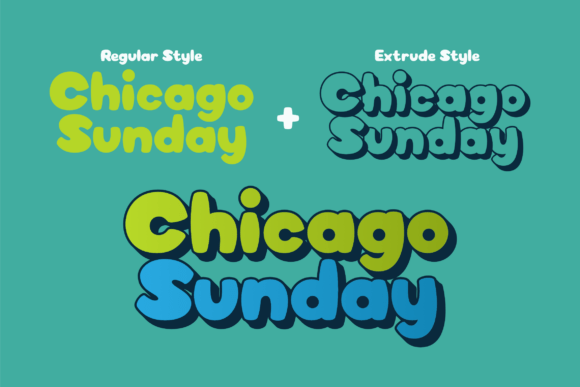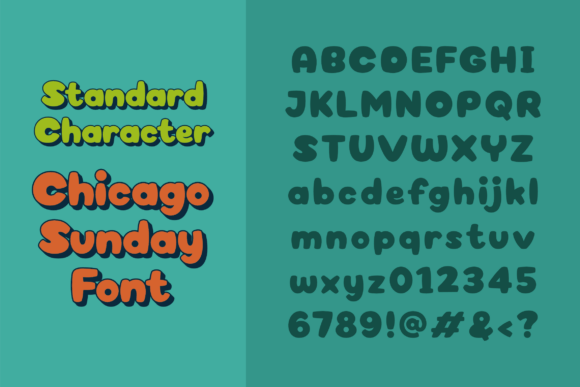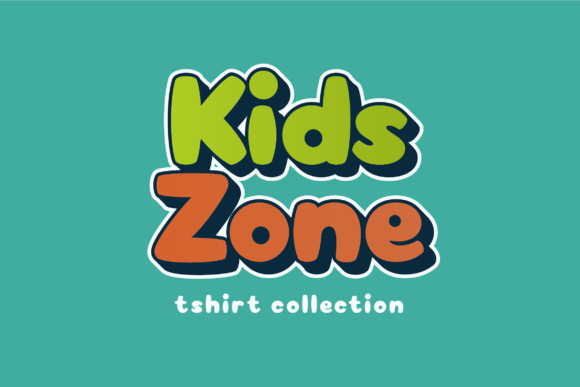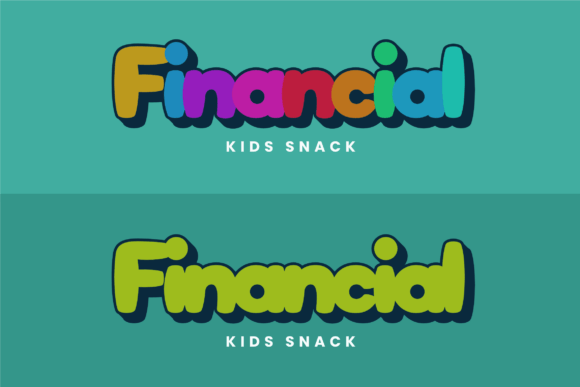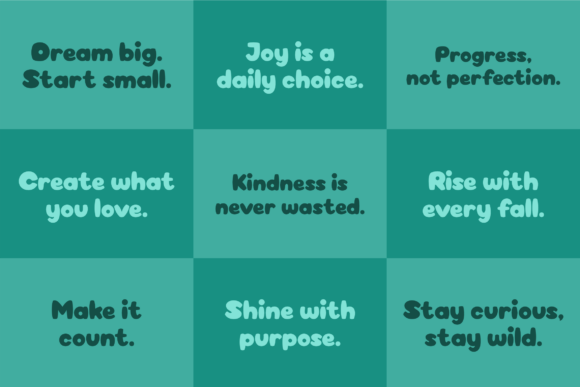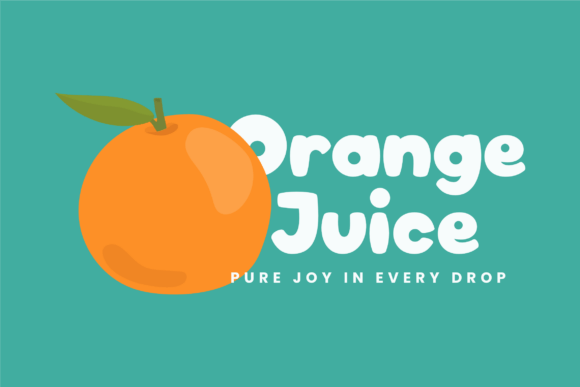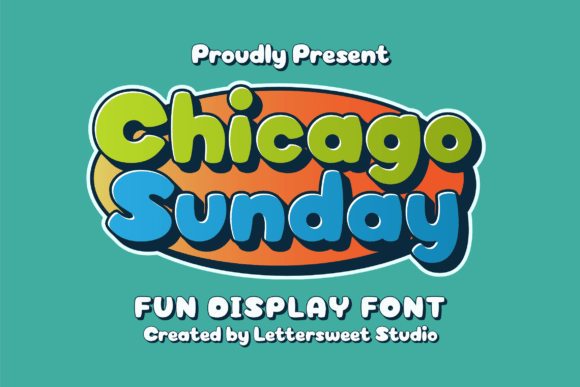
Introducing Chicago Sunday: The Ultimate Display Font for Creative Projects
Are you tired of using the same old fonts for your creative projects? Look no further! Say hello to Chicago Sunday, a cheerful and bold display font designed to bring joy and positivity to your designs. With its chunky curves, vibrant style, and cartoon-inspired look, this font is perfect for anything that needs a dose of fun and energy.
The Perfect Font for Playful Designs
Chicago Sunday is a versatile font that can be used for a wide range of creative projects, from kids’ products and playful logos to comic books, YouTube thumbnails, greeting cards, and educational materials. Its bold and easy-to-read letterforms make it perfect for headlines, branding, and display use, while its friendly and energetic vibe adds a lively personality to your design.
Why Choose Chicago Sunday?
So, what sets Chicago Sunday apart from other fonts? Here are just a few reasons why designers and crafters love this font:
• Bold and easy-to-read letterforms: Chicago Sunday’s chunky curves and bold lines make it easy to read, even at small sizes.
• Friendly and energetic vibe: This font exudes a playful and cheerful personality that’s perfect for designs that need a dose of fun and positivity.
• Great for headlines, branding, and display use: Chicago Sunday is designed to grab attention and make a statement, making it perfect for headlines, logos, and display text.
• Comes with full uppercase, lowercase, punctuation & multilingual support: This font includes a wide range of characters, making it suitable for use in a variety of languages and projects.
• Perfect for both digital and print projects: Whether you’re designing for screen or print, Chicago Sunday is a versatile font that can be used in a wide range of applications.
Bringing Joy and Positivity to Your Designs
Chicago Sunday is more than just a font – it’s a way to bring joy and positivity to your designs. Its cartoon-inspired look and cheerful personality make it perfect for designs that need to appeal to a younger audience, while its bold and easy-to-read letterforms ensure that your message gets across clearly.
So, what can you create with Chicago Sunday? The possibilities are endless! Here are just a few ideas to get you started:
• Kids’ products: Use Chicago Sunday to create fun and engaging designs for kids’ products, such as toys, games, and educational materials.
• Playful logos: Create a bold and eye-catching logo for your business or brand with Chicago Sunday.
• Comic books: Add a touch of fun and energy to your comic book designs with Chicago Sunday.
• YouTube thumbnails: Use Chicago Sunday to create eye-catching thumbnails for your YouTube videos.
• Greeting cards: Create fun and playful greeting cards for special occasions with Chicago Sunday.
• Educational materials: Use Chicago Sunday to create engaging and interactive educational materials, such as worksheets, activity sheets, and more.
In conclusion, Chicago Sunday is a versatile and fun display font that’s perfect for designers and crafters who want to add a touch of joy and positivity to their creative projects. With its bold and easy-to-read letterforms, friendly and energetic vibe, and endless possibilities for use, Chicago Sunday is a font that’s sure to bring a smile to your face and a touch of fun to your designs. So why wait? Let your design shine with Chicago Sunday – a font that’s as bright and exciting as a sunny weekend in the city!